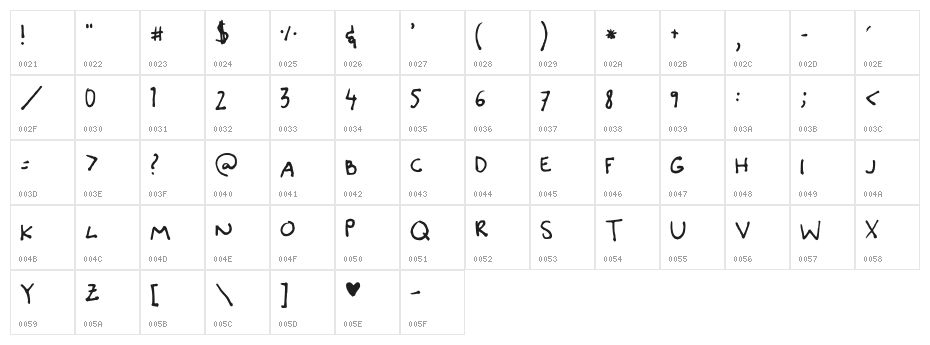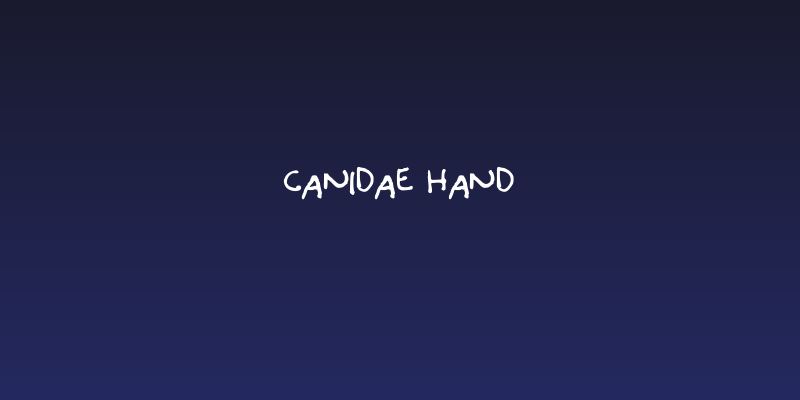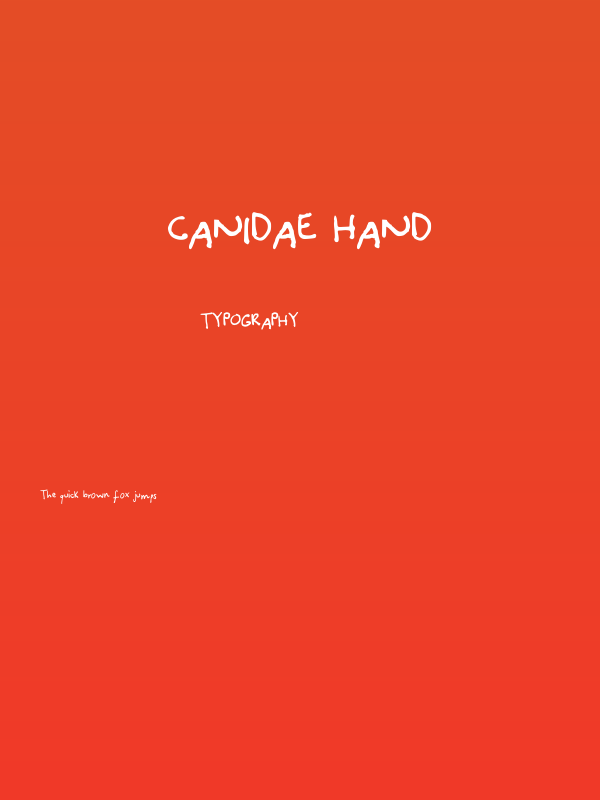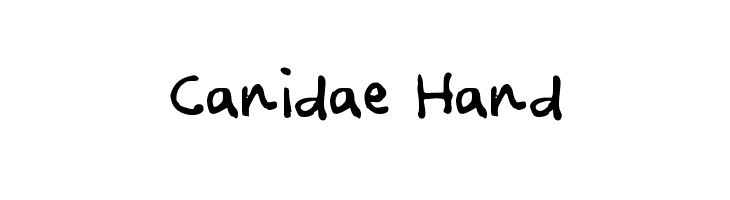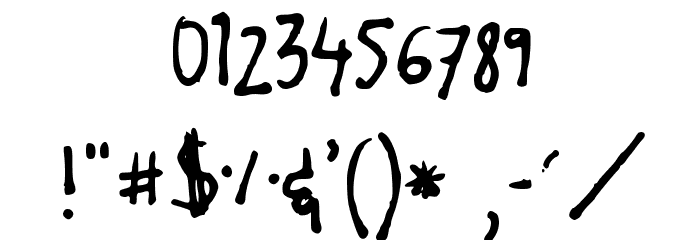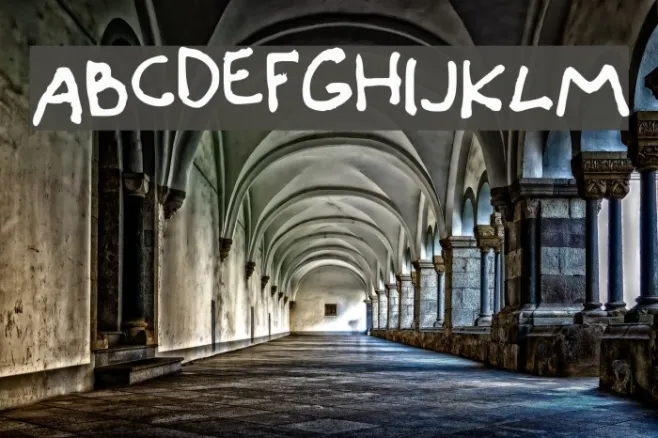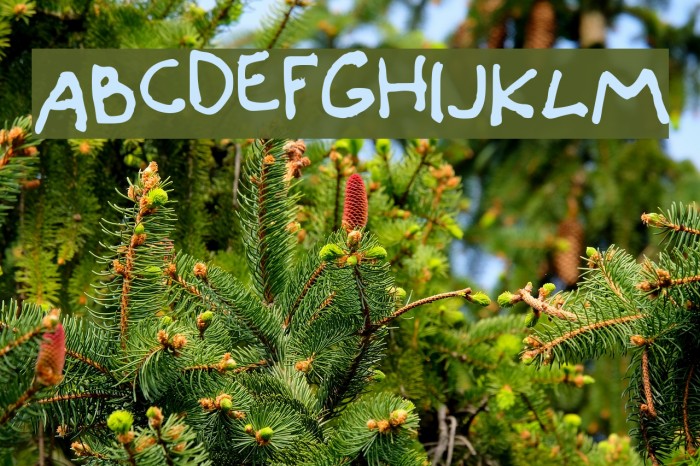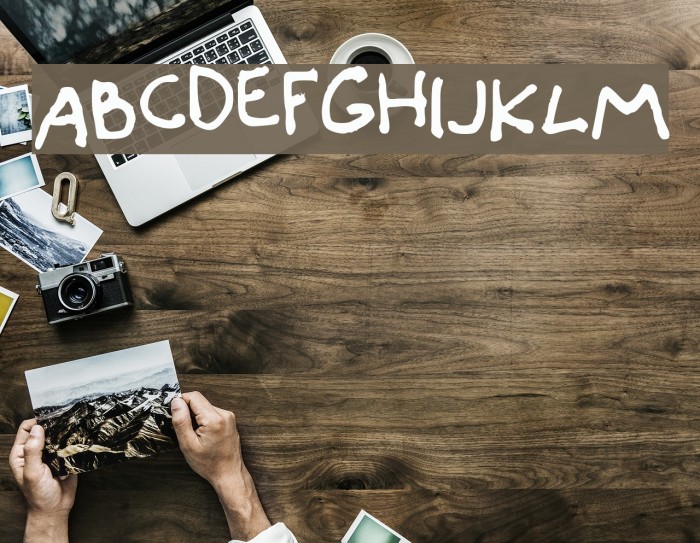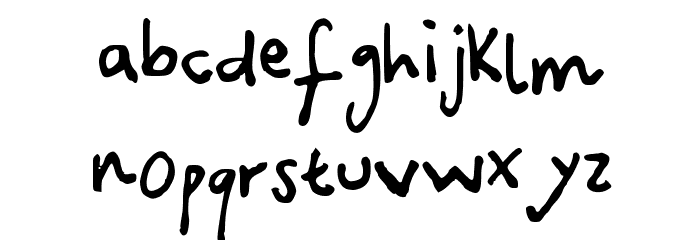
Canidae Hand Font
Canidae Hand Description
This font exudes a playful and casual handwritten style, characterized by its irregular and organic strokes. The letters have a natural flow, mimicking the spontaneity of handwriting. The uppercase and lowercase letters maintain a consistent style, with rounded edges and varying line thickness that adds to its charm. The numerals and special characters follow the same aesthetic, ensuring a cohesive look throughout. This font is perfect for projects that require a personal touch, such as greeting cards, invitations, or any creative design that benefits from a human element.
| Proposed Projects | Ideal for greeting cards, invitations, personal notes, and creative designs needing a human touch. |